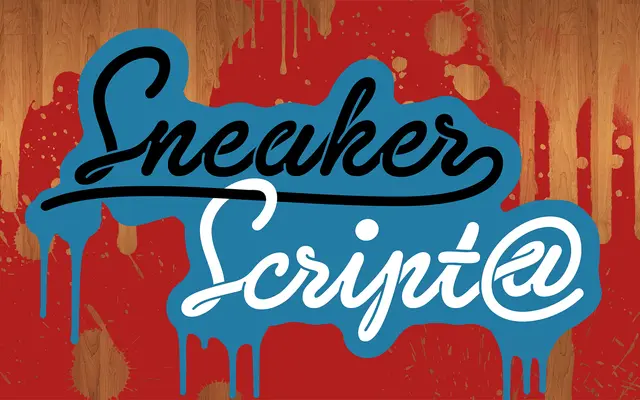
Sneaker Script
A looping connected script with retro character, drawing on the flowing hand-lettered aesthetic of the 1960s and 70s.
The letterforms curl and swirl with exuberant energy, supported by OpenType alternates that extend the range of stylistic variation. Its informal, flowing rhythm suits display and packaging work where a vintage, hand-crafted quality is wanted. The retro sensibility sits comfortably in branding, posters and apparel graphics.
A flowing connected script with looping letterforms and retro stylistic alternates via OpenType, evoking informal hand-lettered styles of the 1960s and 70s.